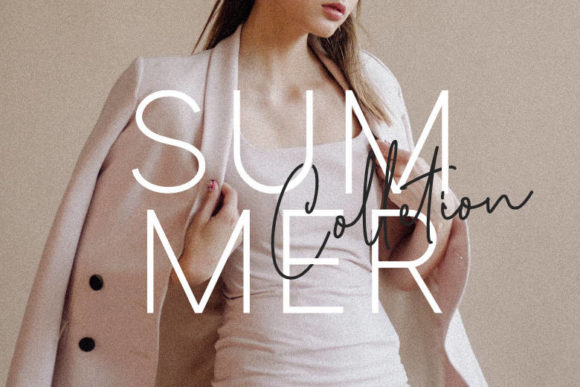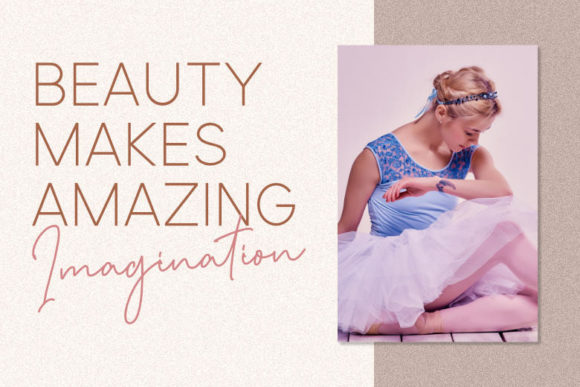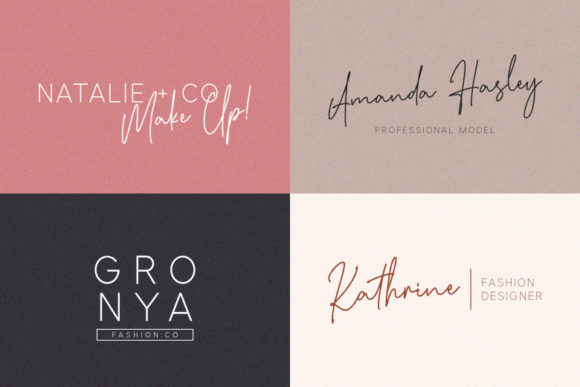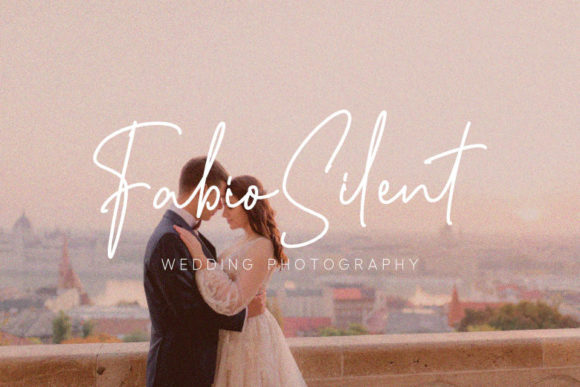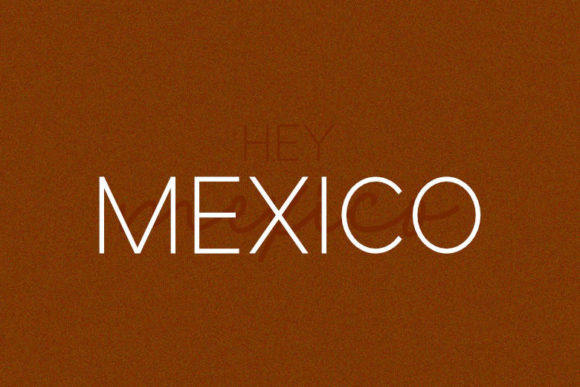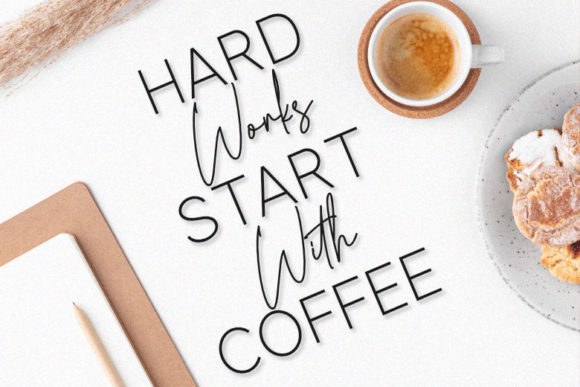
Introduction to Sansburg Font
Sansburg is a cool and versatile duo font (script and sans serif).
It is PUA encoded which means you can access all of the glyphs and swashes with ease Fall in love with its incredibly versatile style and use it to create spectacular designs.
Key Features of Sansburg Font